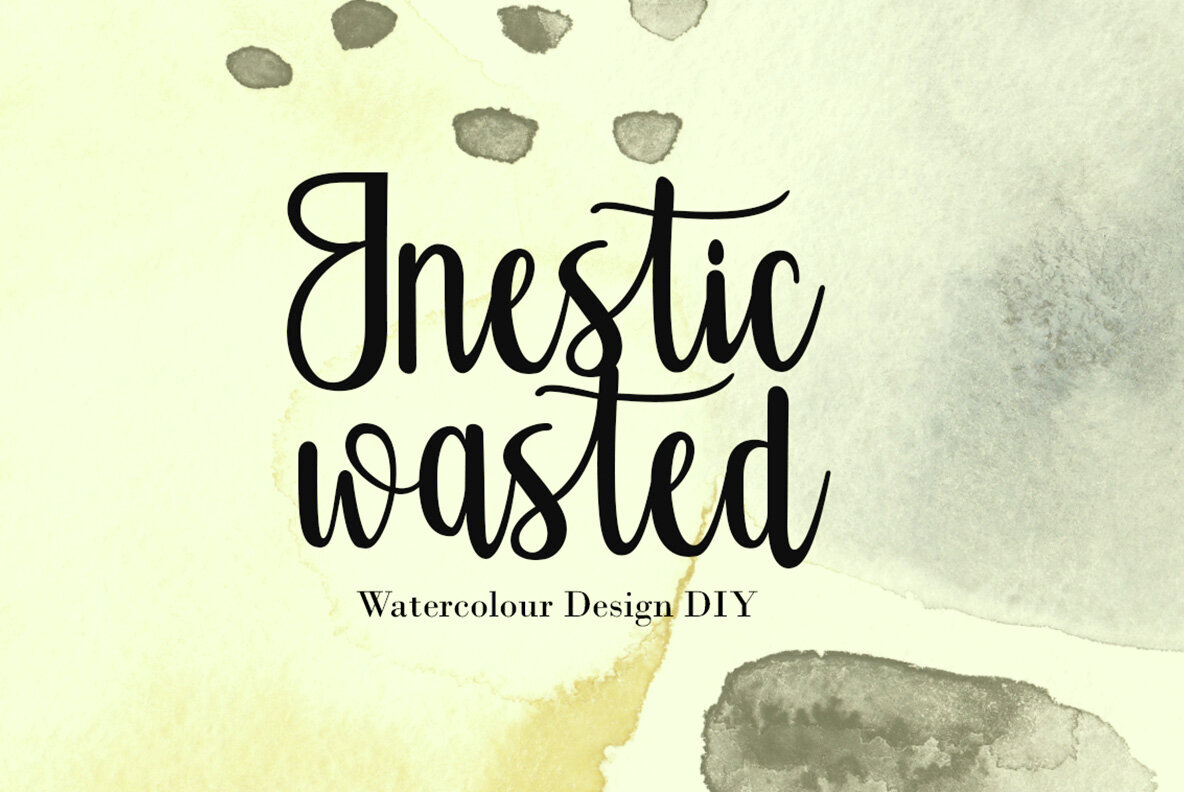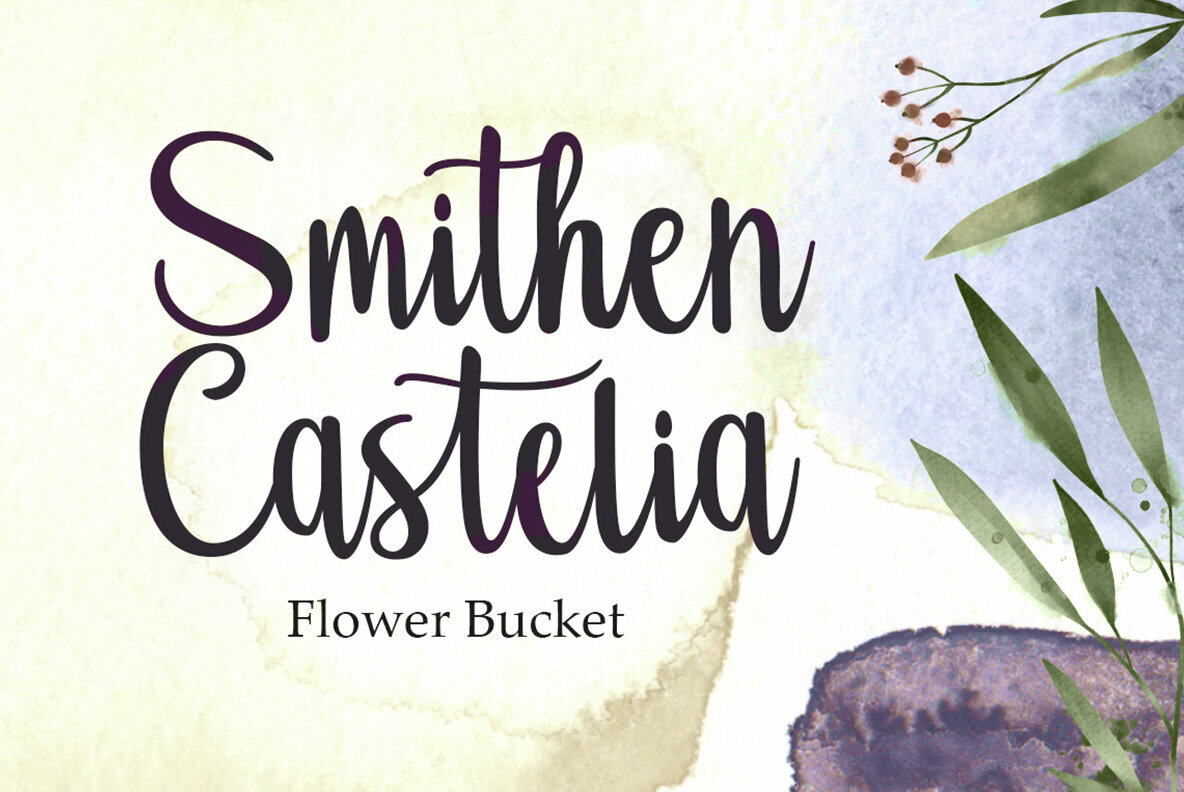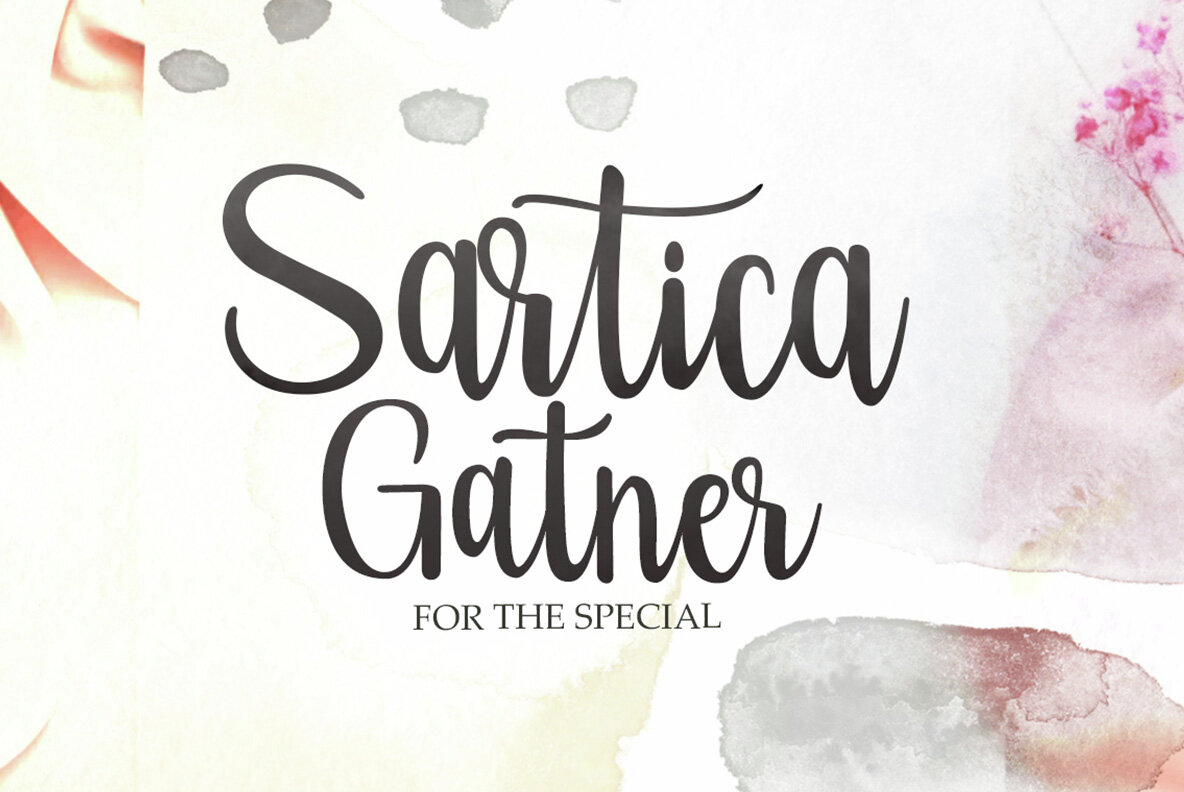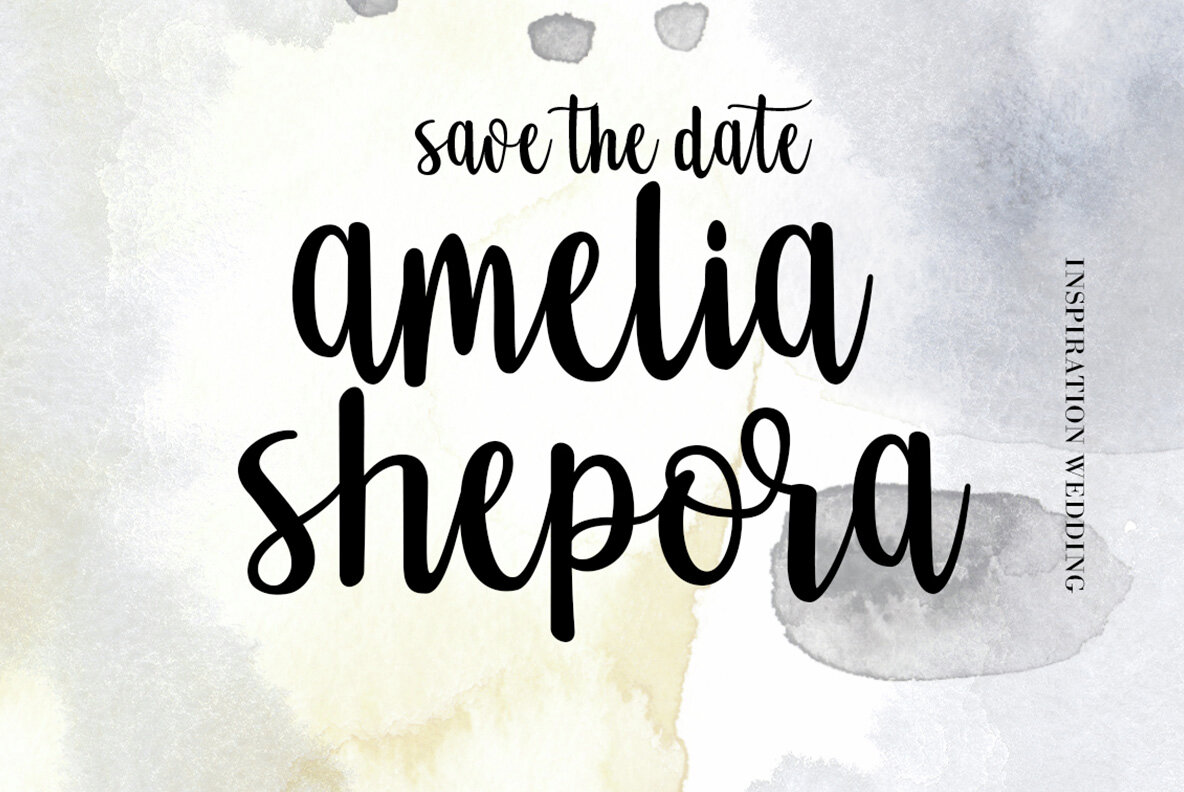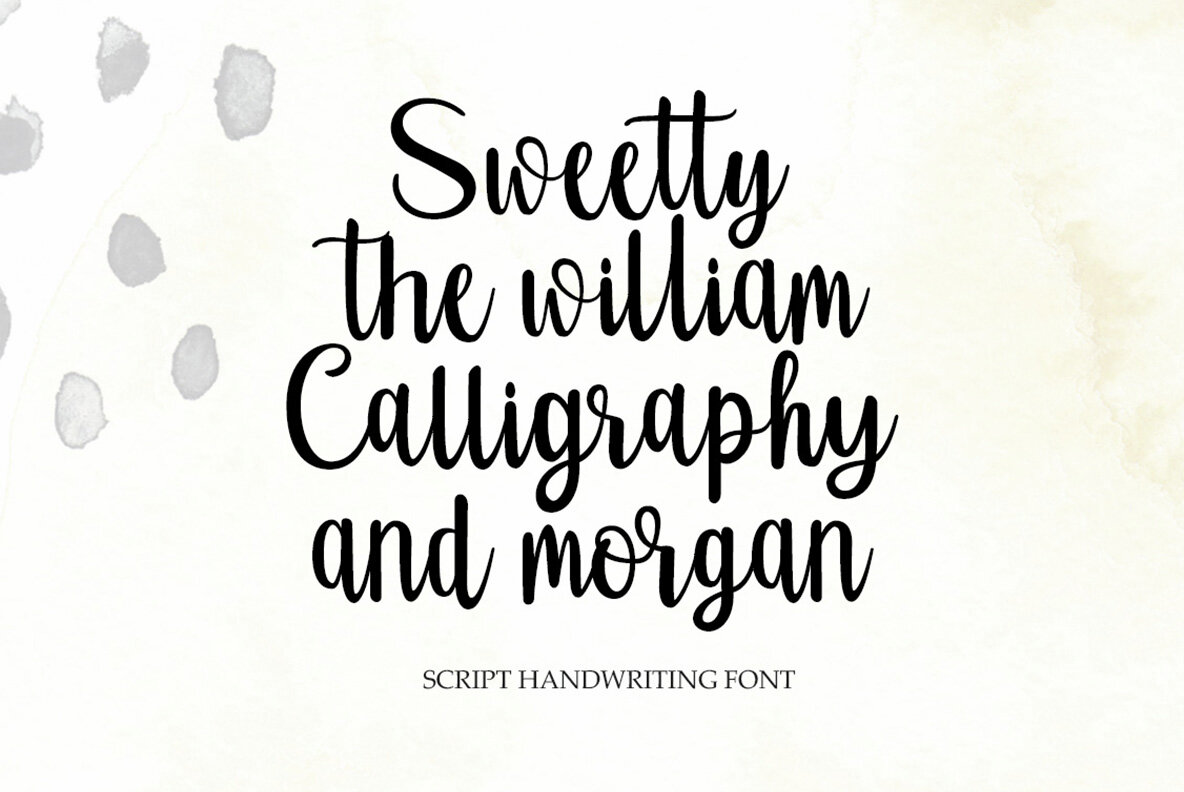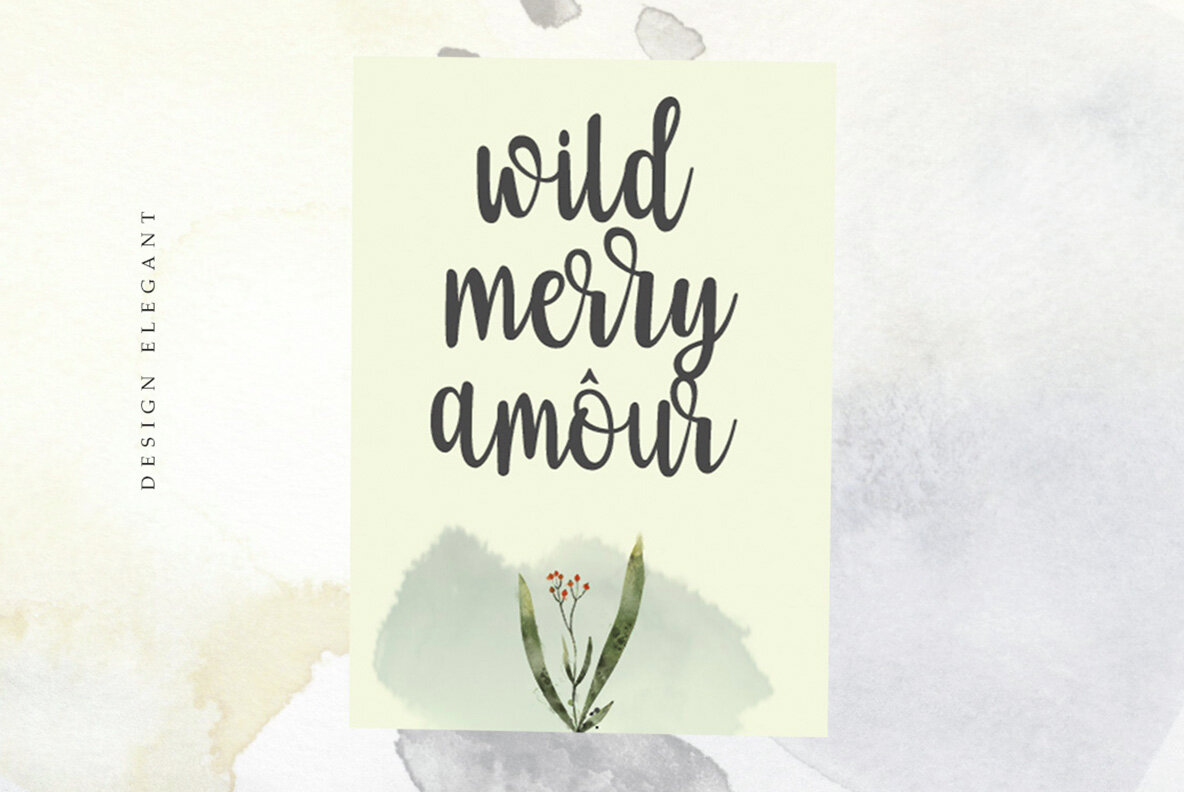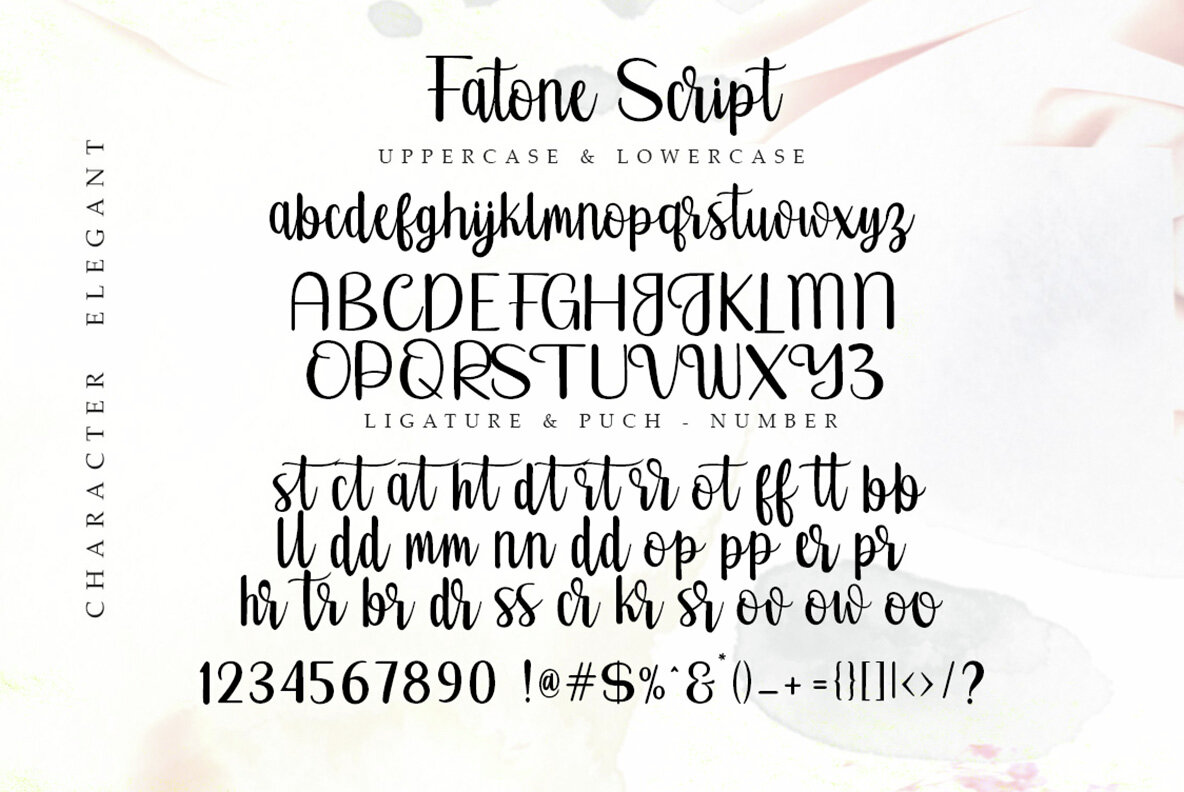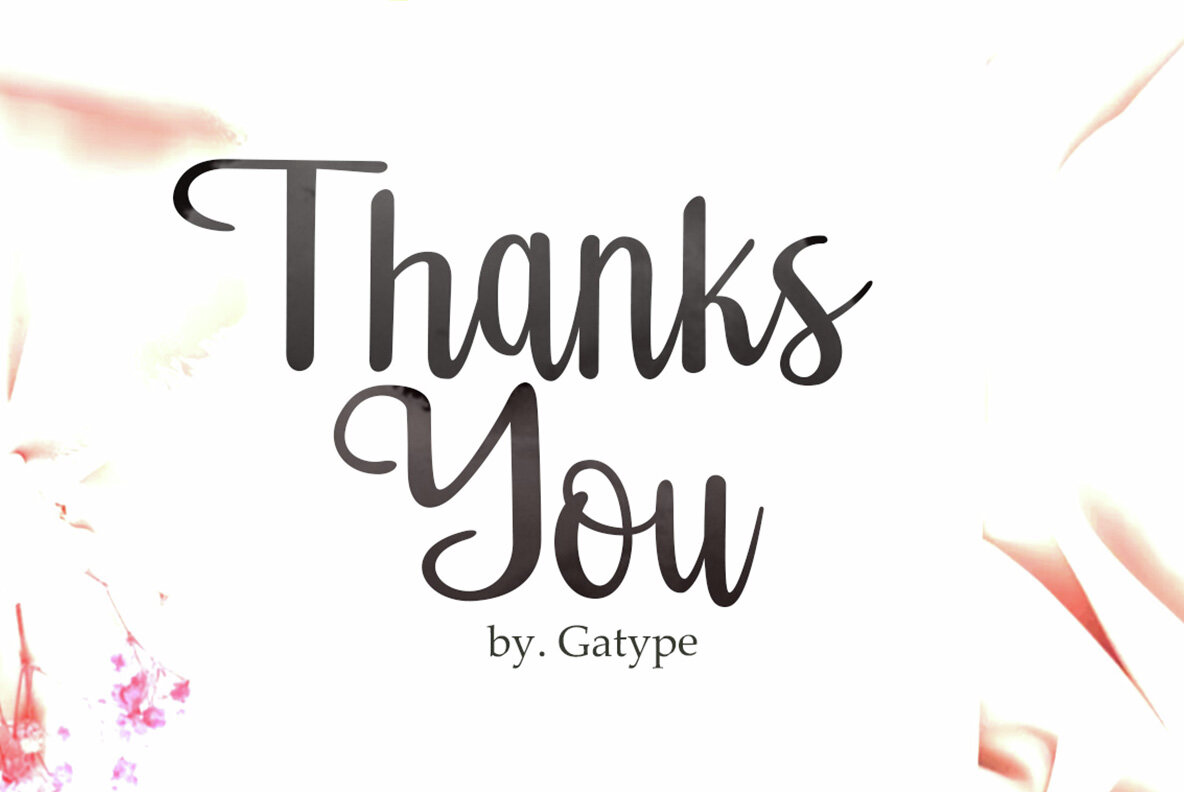
Fatone Font
Fatone Script
Fatone Script is an elegant typeface with a creative flair, perfect for capturing the beauty of contemporary calligraphy. Its thick, balanced strokes exude luxury and sophistication, making it an excellent choice for logotypes, branding, wedding invitations, romantic cards, alcohol labels, packaging, and more. With beautifully crafted uppercase and lowercase letters, along with numbers and punctuation, Fatone Script provides a versatile and stylish option for a variety of design needs.
The typeface includes numerous alternative characters, early and late swashes, and comes in four variations: regular, outline, italic, and distort. This selection allows for harmonious text combinations and creative flexibility. The Stylistic Alternate Ligatures can be easily applied using the Standard Ligature option in the Opentype panel in Adobe Photoshop or Illustrator. Add a touch of elegance and creativity to your projects with Fatone Script.